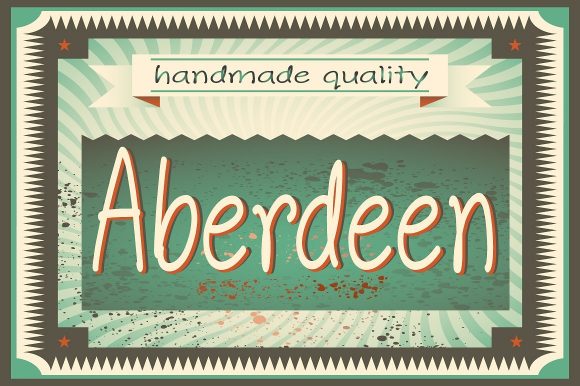
The Designer’s Delight: Aberdeen Font
I still remember the frustration of working on a project, hours spent perfecting every detail, only to hit a roadblock when it came to choosing the right font. My client wanted something that felt organic, natural, and cool – a tall order! That’s when I stumbled upon the Aberdeen font, and it was love at first sight. In this article, I’ll share my experience with this amazing font, its features, and how to make the most of it in your designs.
An Honest Review of Aberdeen Font
- ✨ Organic and Natural Feel: Aberdeen has a unique, handwritten quality that makes it perfect for projects that require a personal touch.
- ✅ Versatility: This font can be used in a wide range of projects, from branding and advertising to crafting and DIY tutorials.
- 💫 High Legibility: Even at smaller sizes, Aberdeen remains clear and easy to read, making it perfect for body text.
While Aberdeen is an excellent font, it’s not without its quirks. For instance:
- 🤔 Limited Formality: Aberdeen’s organic nature makes it less suitable for very formal or corporate projects.
- ⚠️ Glyph Limitations: While the font has a wide range of glyphs, it may not have every special character you need.
Exploring OpenType Features
Aberdeen font comes with a range of OpenType features, including:
| Feature | Description |
| Glyphs | Alternate characters for added variety. |
| Stylistic Alternates | Different font styles for emphasis or variation. |
The Backstory of Aberdeen Font
Aberdeen was designed by a team of creative typographers who wanted to create a font that felt both organic and modern. Inspired by the natural beauty of the Scottish countryside, they crafted a font that’s perfect for adding a personal touch to your designs.
| Font Name | Aberdeen Font |
| Author | iordache.ionut |
Q: What type of projects is Aberdeen best suited for?
A: Aberdeen is versatile and can be used in a wide range of projects, from branding and advertising to crafting and DIY tutorials.
Q: Is Aberdeen a difficult font to read?
A: No, Aberdeen is designed to be highly legible, even at smaller sizes.